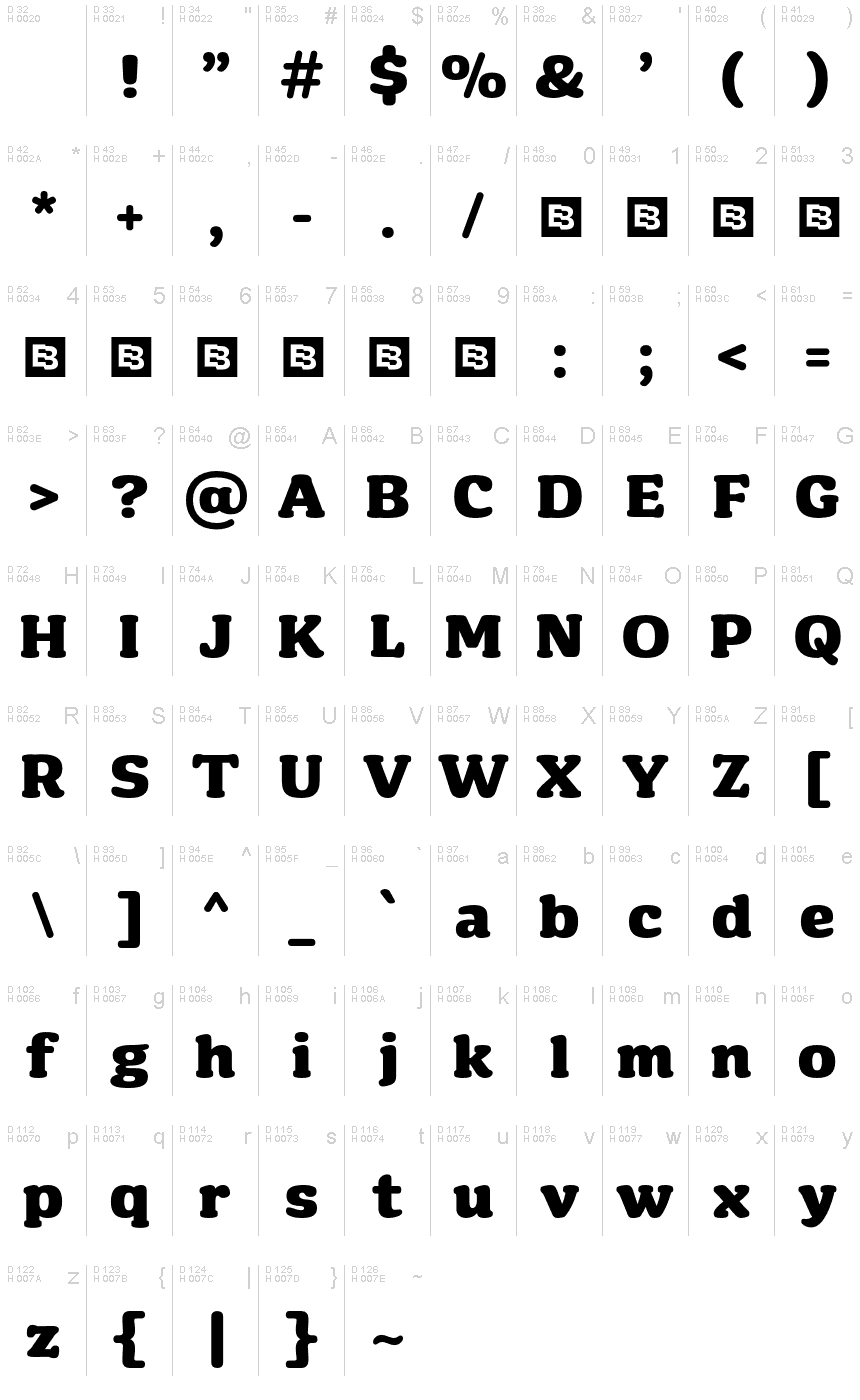
Brandier ExtraBold is a striking display font designed by Eko Bimantara. With its retro serif style and extra-bold weight, this font exudes confidence and nostalgia.
Perfect for vintage-inspired projects, it adds a touch of elegance to logos, posters, and packaging designs. Its semi-expanded width allows for improved legibility without compromising on the boldness that makes it stand out. Whether you're designing a classic diner menu or reviving the glory of old-fashioned branding, Brandier ExtraBold is the perfect choice to capture attention and leave a lasting impression.